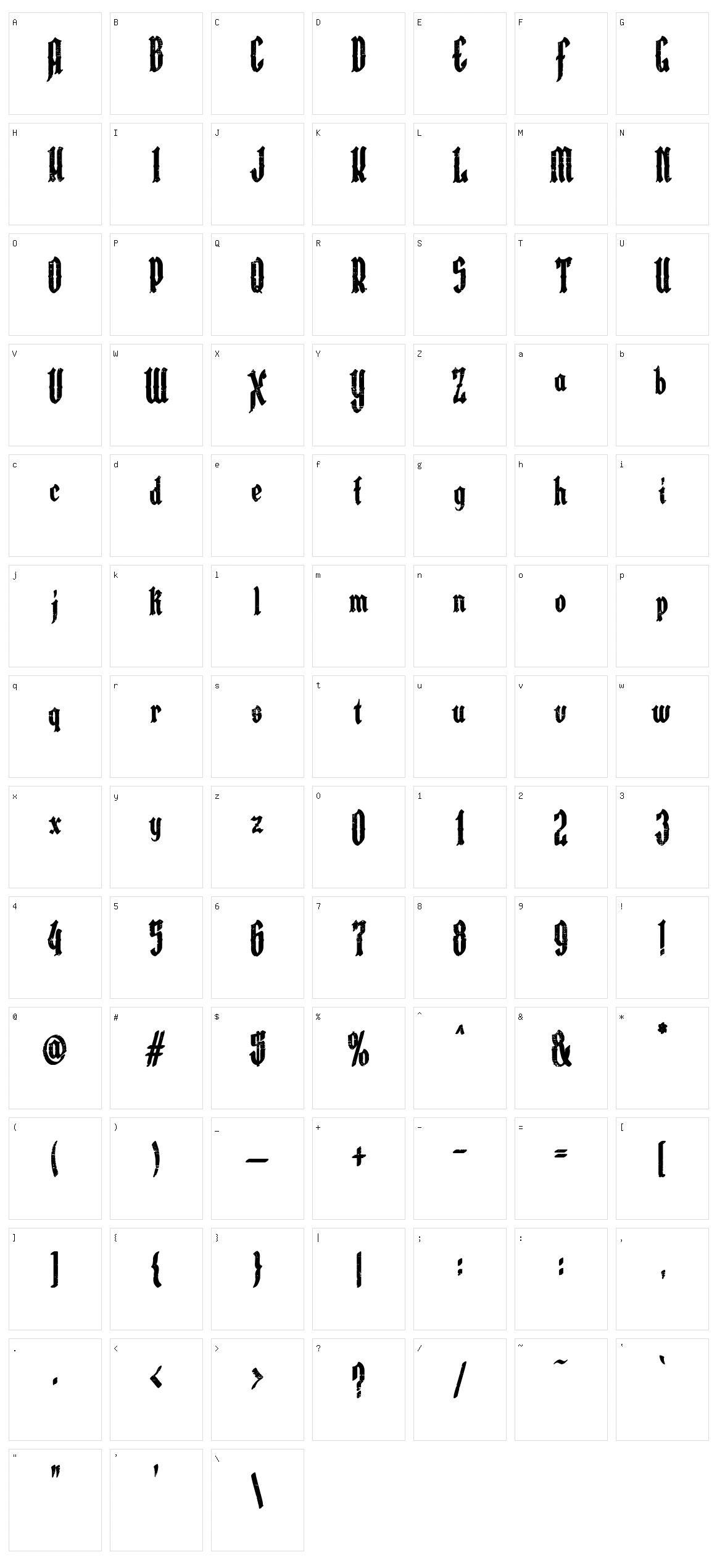
The free font Austrian Castle is carefully designed by Woodcutter, showcasing a thoughtful balance of creativity and usability and belongs to the Gothic font family. When you download the ZIP file, it contains only 105.54 KB of font files, making it lightweight and quick to download. Please review the license details below to understand permitted usage and distribution rights. If license information is not available, we recommend using this font for personal projects only or contacting the author directly for commercial usage permissions.